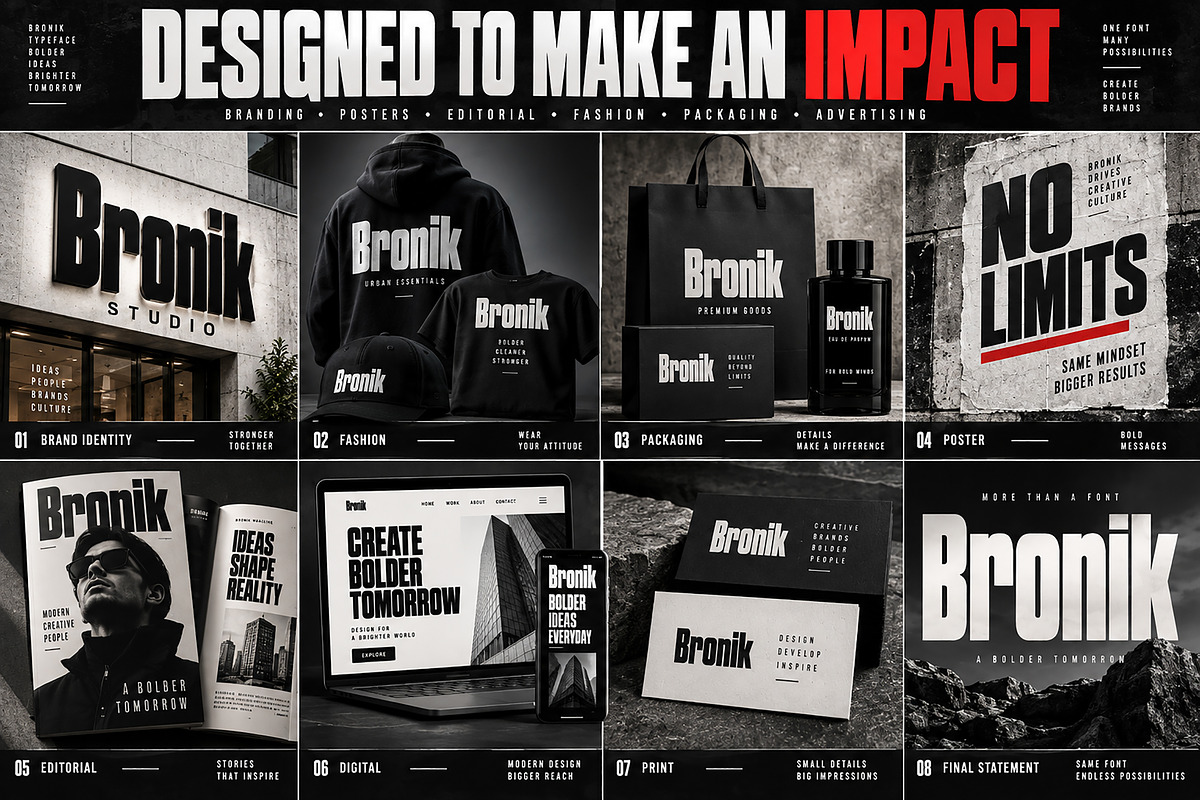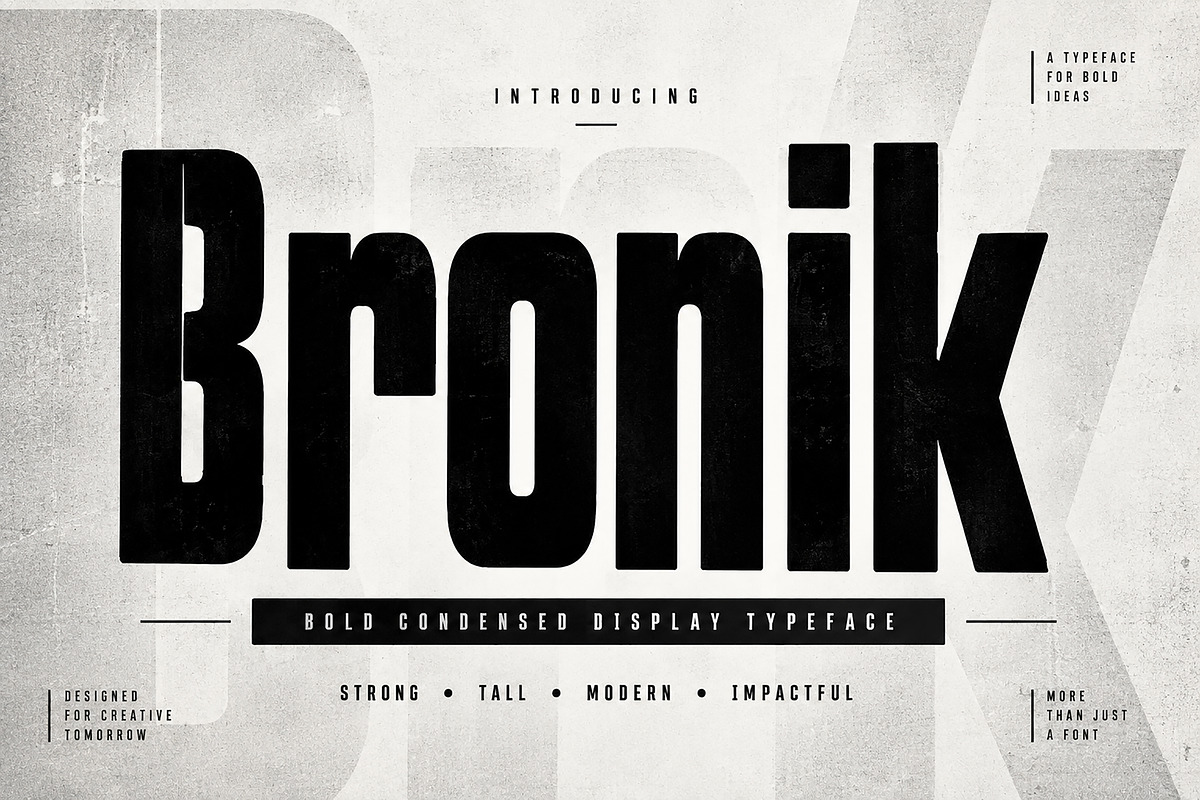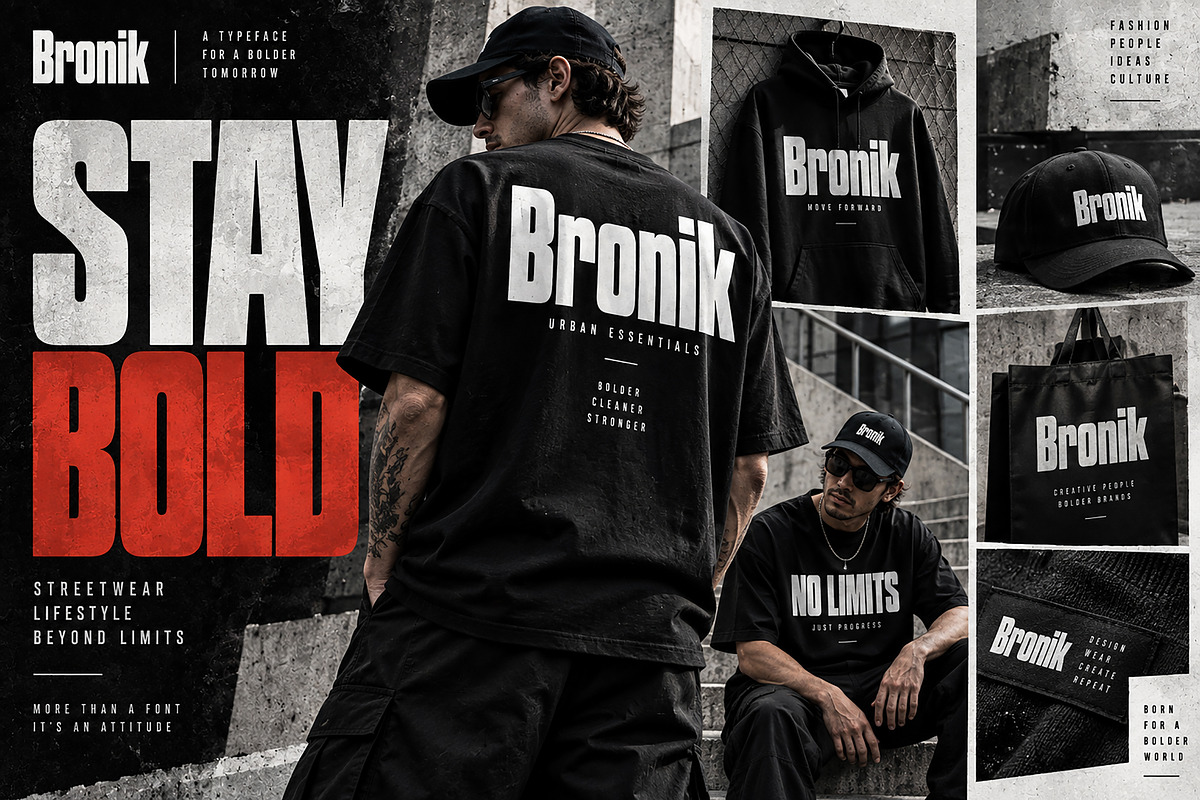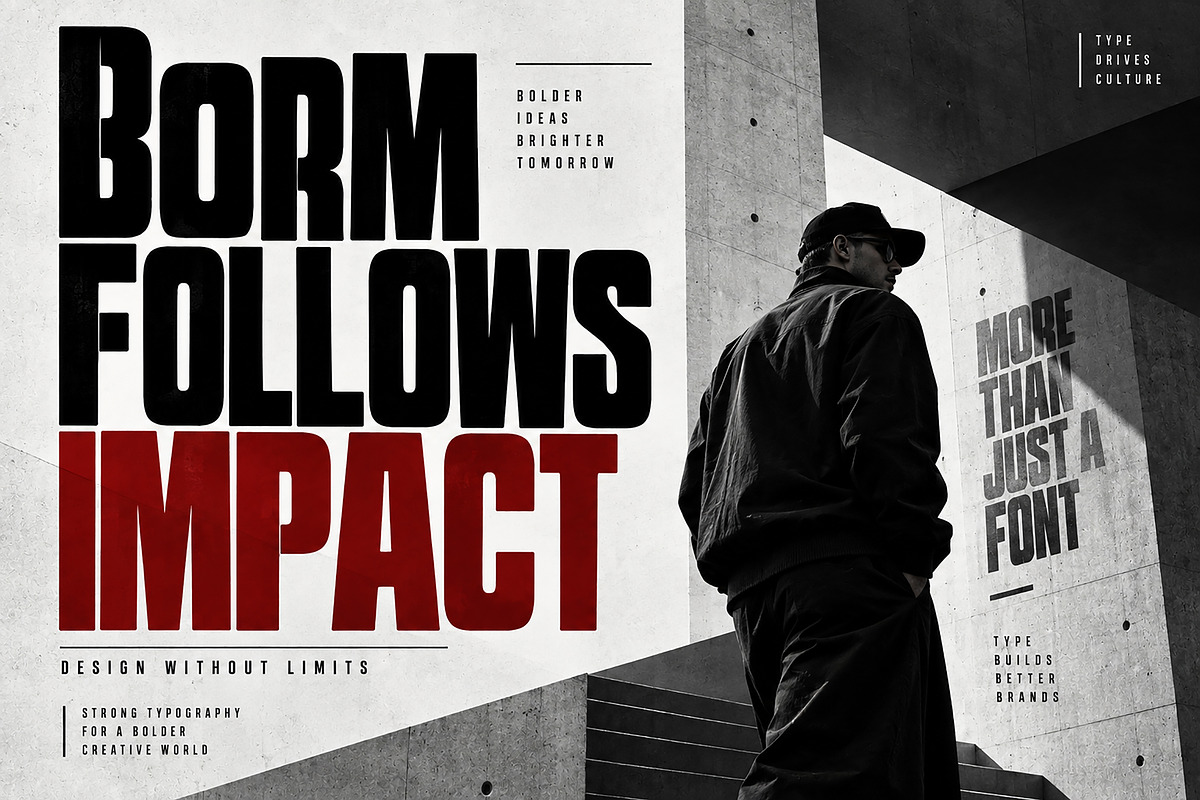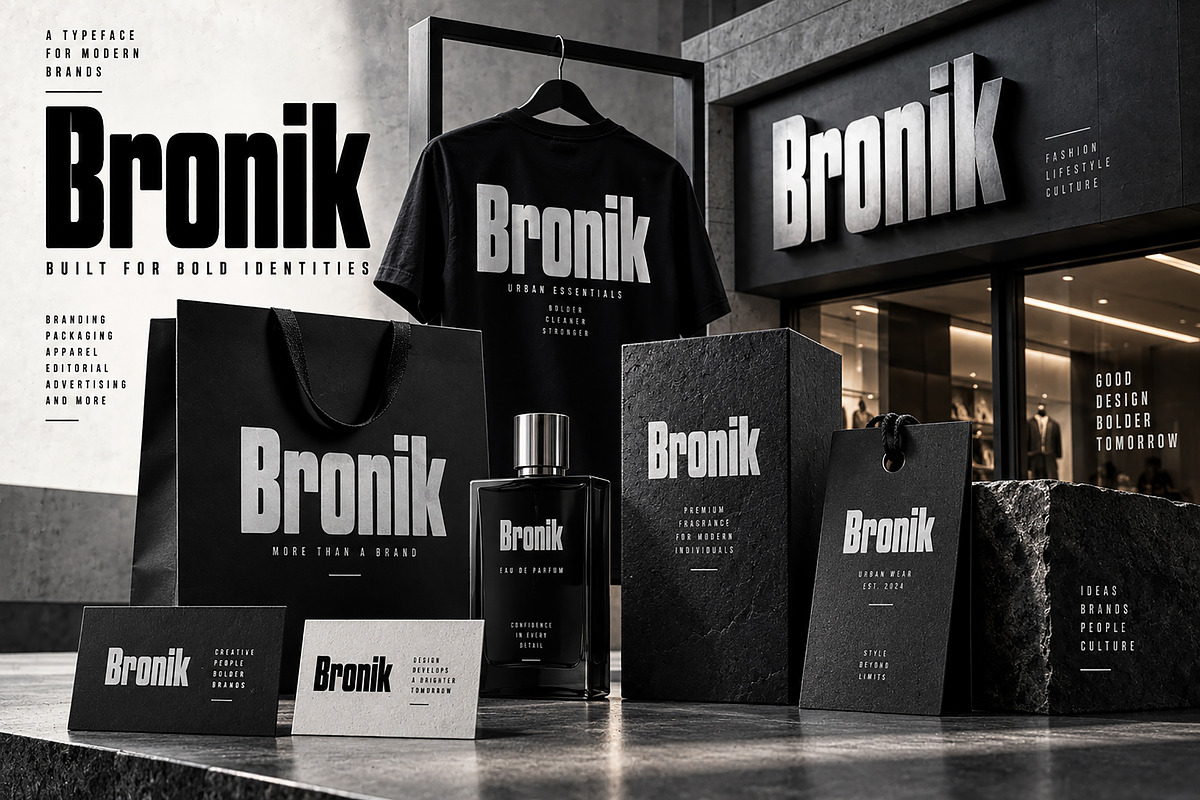
Bronik
Bronik is a bold condensed display typeface designed to make a powerful visual statement. With its tall proportions, heavy weight, compact letterforms, and strong contemporary presence, Bronik is ideal for designs that need maximum impact with a clean and confident aesthetic.
Perfect for fashion branding, streetwear graphics, posters, editorial layouts, advertising campaigns, packaging, logos, headlines, labels, social media graphics, and modern brand identities.
Its bold condensed structure allows you to create striking headlines while maintaining a strong, professional visual hierarchy. Whether you're designing a fashion campaign, an urban apparel collection, a promotional poster, or a distinctive brand identity, Bronik brings a powerful and modern character to your work.
Logo & Brand Identity
Fashion & Streetwear
T-Shirt & Apparel Design
Posters & Headlines
Editorial & Magazine Design
Packaging & Product Branding
Advertising & Marketing
Labels & Tags
Signage & Display Design
Website Headers
Creative Campaigns
Font Name: Bronik
Style: Bold Condensed Display Typeface
Type: Display Font
Recommended For: Branding, Headlines, Posters, Fashion, Packaging & Commercial Design
Bronik — Bold typography built to stand out.